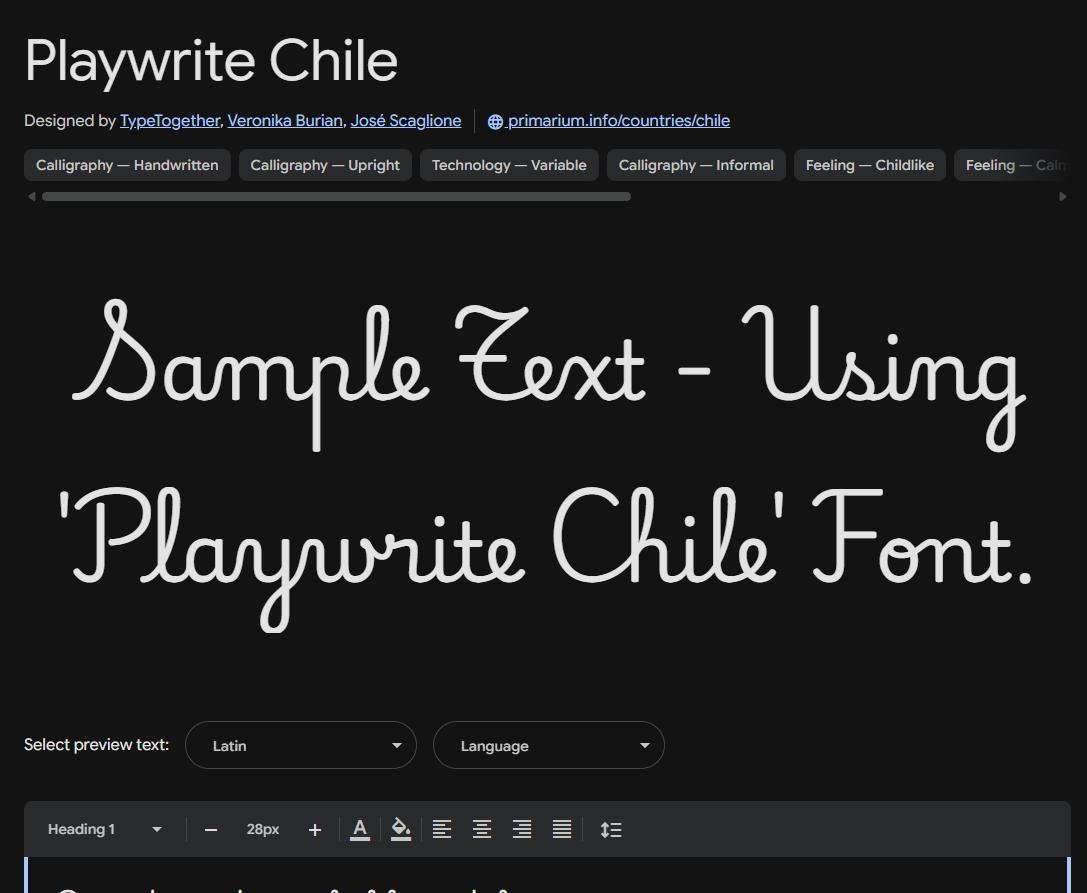
As a cornerstone of the global educational initiative spearheaded by TypeTogether, Playwrite Chile represents a sophisticated fusion of pedagogical tradition and modern variable font technology, meticulously crafted by Veronika Burian and José Scaglione to standardize Chilean primary school script. This single-axis variable typeface utilizes precision interpolation to preserve the integrity of regional ductus and stroke modulation, allowing the font to adapt across a weight spectrum without compromising the specific instructional letterforms required for developing motor skills. By embedding localized cursive models into a digital framework, the typeface optimizes the rendering of fluid connections and terminal flourishes through advanced OpenType features, providing a semantically rich tool that bridges the gap between analog handwriting pedagogy and high-resolution screen-based literacy.
The Playwrite Chile font family represents a sophisticated fusion of modern variable font technology and traditional pedagogical cursive, meticulously crafted to mirror the upright, handwritten calligraphy standards used in Chilean education. This informal typeface leverages a variable axis to oscillate between a calm, disciplined legibility and a loud, rugged texture, effectively capturing a vintage aesthetic that remains highly functional for digital interfaces. By balancing the happy, playful energy of its childlike curves with a structured typographic rhythm, the family provides a unique semantic resonance that feels both nostalgic and contemporary. Whether rendered in its minimalist form or pushed to a more expressive, loud weight, Playwrite Chile utilizes advanced OpenType joinery to maintain the authentic flow of human script, offering a versatile design solution that embodies a cheerful, human-centric perspective within the typeface industry.
Due to its specialized origin as a pedagogical tool mapping the specific rhythmic irregularities of the Chilean primary school handwriting model, Playwrite Chile-engineered by TypeTogether's Veronika Burian and José Scaglione-is fundamentally unsuitable for high-stakes corporate governance or legal documentation where mechanical neutrality and high-legibility sans-serif structures are required. While its single variable axis allows for precise weight adjustments, the inherent script-based ligatures and cursive-leaning glyph architecture conflict with the rigorous scanning requirements of Optical Character Recognition (OCR) systems used in financial auditing and the rapid information processing needed in emergency medical interfaces. Utilizing this localized educational script in heavy-industrial engineering manuals would compromise safety due to its stylistic idiosyncrasies, which lack the rigid stroke-weight consistency and distinct character differentiation found in neo-grotesque typefaces designed for high-stress, low-latency readability environments.
Playwrite Chile features a cursive, hand-drawn aesthetic inspired by Chilean educational script, characterized by fluid strokes and continuous letter connections. The typeface employs advanced OpenType features to manage contextual alternates, ensuring that stroke thickness remains consistent across its variable weight axis from 100 to 400.
This script pairs effectively with clean sans-serif fonts like Montserrat or Roboto to provide a structural contrast against its organic forms. Utilizing a high-x-height companion font balances the low cap-height ratio of Playwrite Chile, preventing visual hierarchy collapse in complex layouts.
Its expressive curves and unique letterforms make it an excellent choice for large-scale headlines where the personality of the script can be fully appreciated. At display sizes, the precise Bézier point distribution minimizes rendering artifacts, maintaining crisp outlines even when scaled beyond 72pt.
Tight leading should be avoided with Playwrite Chile because its long ascenders and descenders require ample vertical space to prevent overlapping. Setting the line-height attribute to at least 1.5 is critical to accommodate the font's generous vertical metrics and prevent clashing of the loop terminals.
While charming, the font loses significant legibility at small point sizes due to the complexity of its cursive joins and thin stroke weights. Rasterization at sizes below 12px often results in aliasing noise, as the delicate connective ligatures fail to align cleanly with the pixel grid.
Playwrite Chile complements themes related to education, childhood, or personal storytelling where an authentic, human touch is required. Its design logic adheres to the continuous motion pedagogy, making it semantically perfect for pedagogical interfaces focused on motor skill development.
It can serve as a striking focal point in minimalist web headers if used sparingly against a backdrop of generous negative space. The variable font technology allows developers to fine-tune the weight parameter via CSS, optimizing the visual weight to match the UI's aesthetic density.
The typeface is highly effective for educational branding because it evokes a sense of learning and foundational literacy development. Because it maps directly to the Ministry of Education standards in Chile, it provides institutional authenticity that generic scripts cannot replicate.
The cursive joins create a rhythmic, undulating texture that mimics the natural flow of hand-written ink on paper. These joins are managed through the calt (contextual alternates) feature, which dynamically adjusts glyph shapes based on neighboring characters to maintain a consistent baseline slope.
While unconventional, Playwrite Chile can offer a bespoke, artisanal feel to luxury packaging that emphasizes hand-crafted origins. Its lack of traditional copperplate flourishes means it avoids over-ornamentation, instead providing a modernist take on cursive that appeals to the craft-luxury market segment.